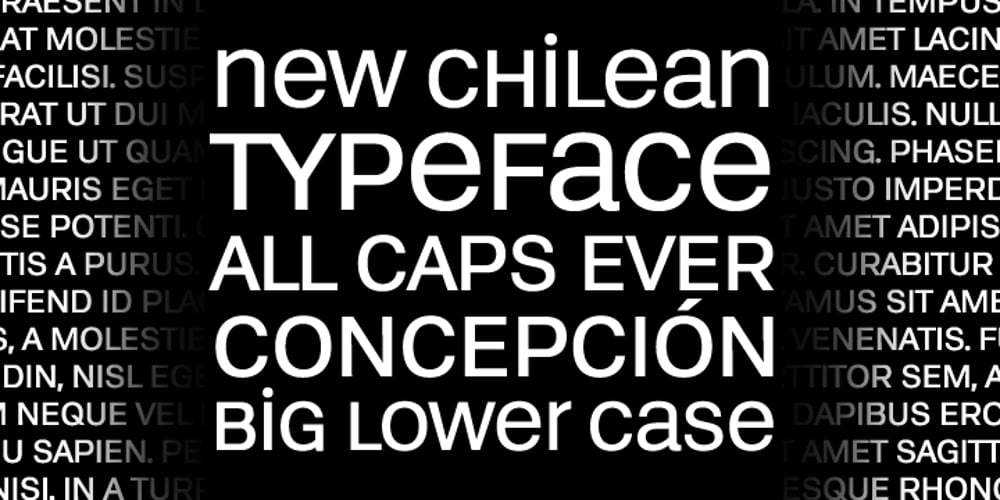
Suisside Font Family was designed by Luciano Vergara and published by MendozaVergara. Suisside contains 3 styles and family package options. Suisside is a sans-serif unicase font design inspired by international style and the new typography. Works great when set in simple, clean and minimal type layouts is recommended for short texts, logos and posters.